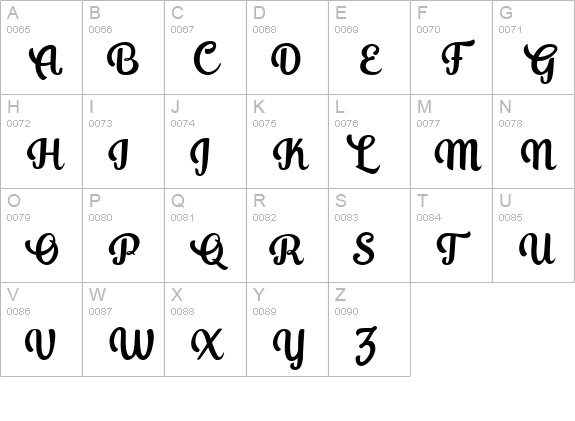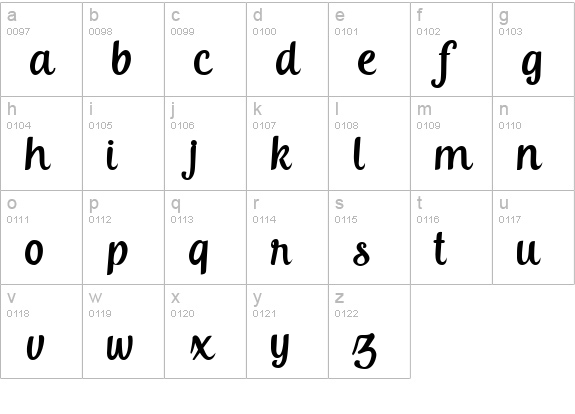
Chinchilla Font Details
Chinchilla is a demo font in the Script > Handwritten category, designed by HydricDesign. It has been downloaded 339 times and is available for Windows, Mac and Linux.
Chinchilla font is a charming and elegant typeface that exudes sophistication and style. Its graceful curves and delicate lines make it a perfect choice for a wide range of design projects, from invitations to branding to packaging. The versatility of Chinchilla font allows it to be used in both formal and casual settings, adding a touch of class to any piece of work.